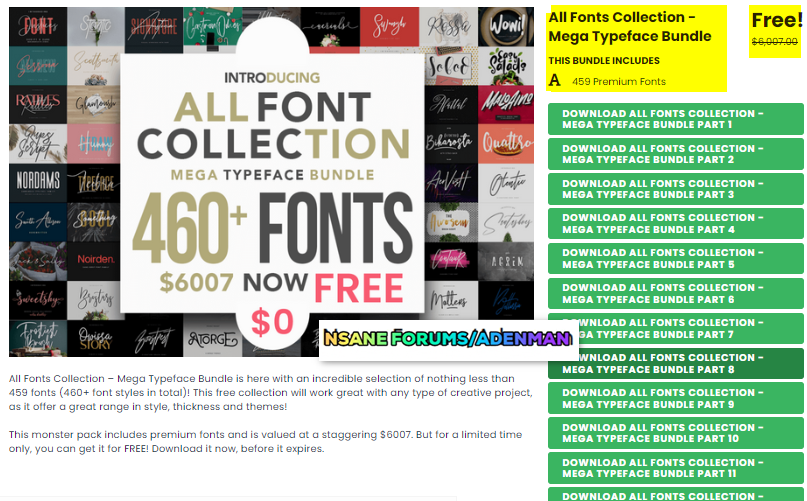
Adenman Posted March 10, 2022 Share Posted March 10, 2022 Font Giveaway: All Fonts Collection – Mega Typeface Bundle (Free Lifetime Access + Commercial License) – 460+ Premium Fonts by Maulana Creative – for Windows & macOS All Fonts Collection – Mega Typeface Bundle is here with an incredible selection of nothing less than 459 fonts (460+ font styles in total)! This free collection will work great with any type of creative project, as it offer a great range in style, thickness and themes! This monster pack includes premium fonts and is valued at a staggering $6007. But for a limited time only, you can get it for FREE! Download it now, before it expires. This collection of 459 fonts (460+ font styles in total) is perfect for any type of project. It offers a fantastic range in style, thickness, and themes. Giveaway link : https://www.creativefabrica.com/product/all-fonts-collection-mega-typeface-bundle/ you can use : https://temp-mail.org/en/ total 13 downloads https://thesoftware.shop/all-fonts-collection-mega-typeface-bundle/ Link to comment Share on other sites More sharing options...